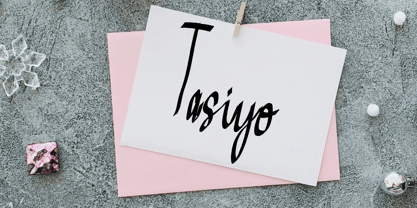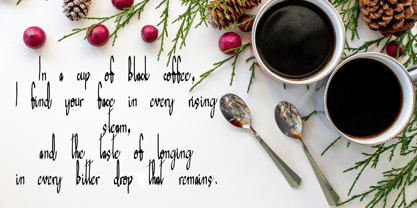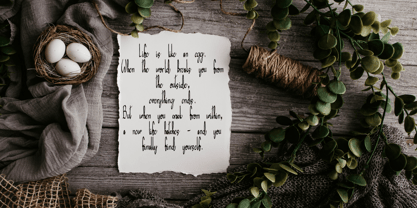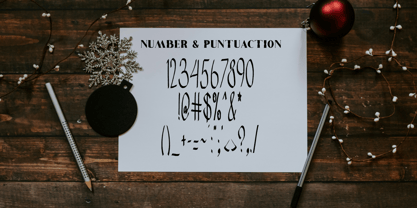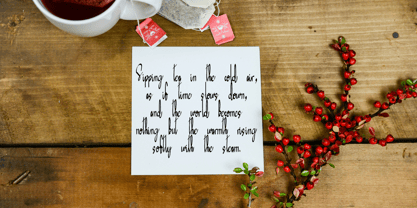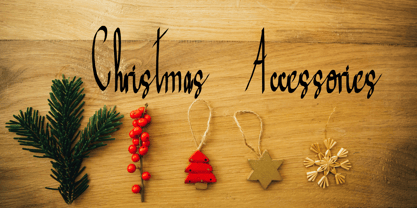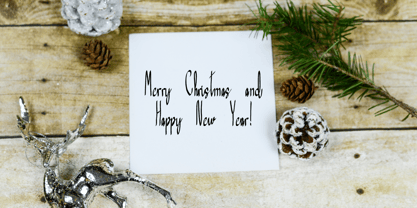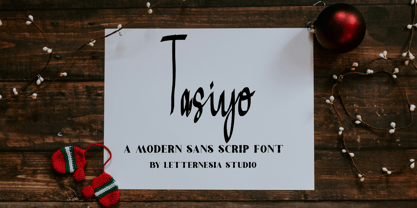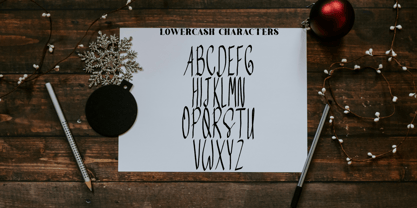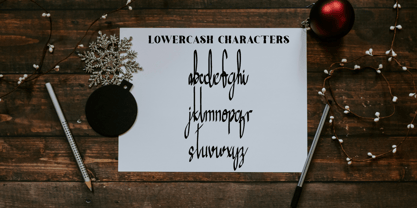
Tasiyo
by Letternesia studio
The Tasiyo Font Family was designed by Ta Siyo and published by Letternesia studio. Tasiyo contains 2 styles and family package options. More about this family
Tasiyo is a beautiful and elegant script font that captures the charm of handwritten letters. With smooth curves and flowing strokes, it brings a personal and artistic touch to every design. Perfect for invitations, logos, quotes, branding, packaging, and social media projects, Tasiyo adds warmth and sophistication in every word it writes. Let your creativity flow with Tasiyo — a script that speaks with grace and emotion.